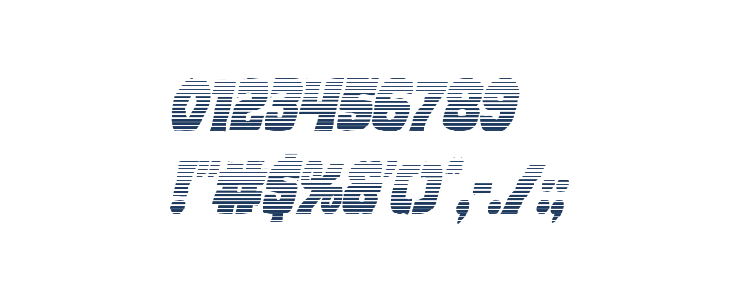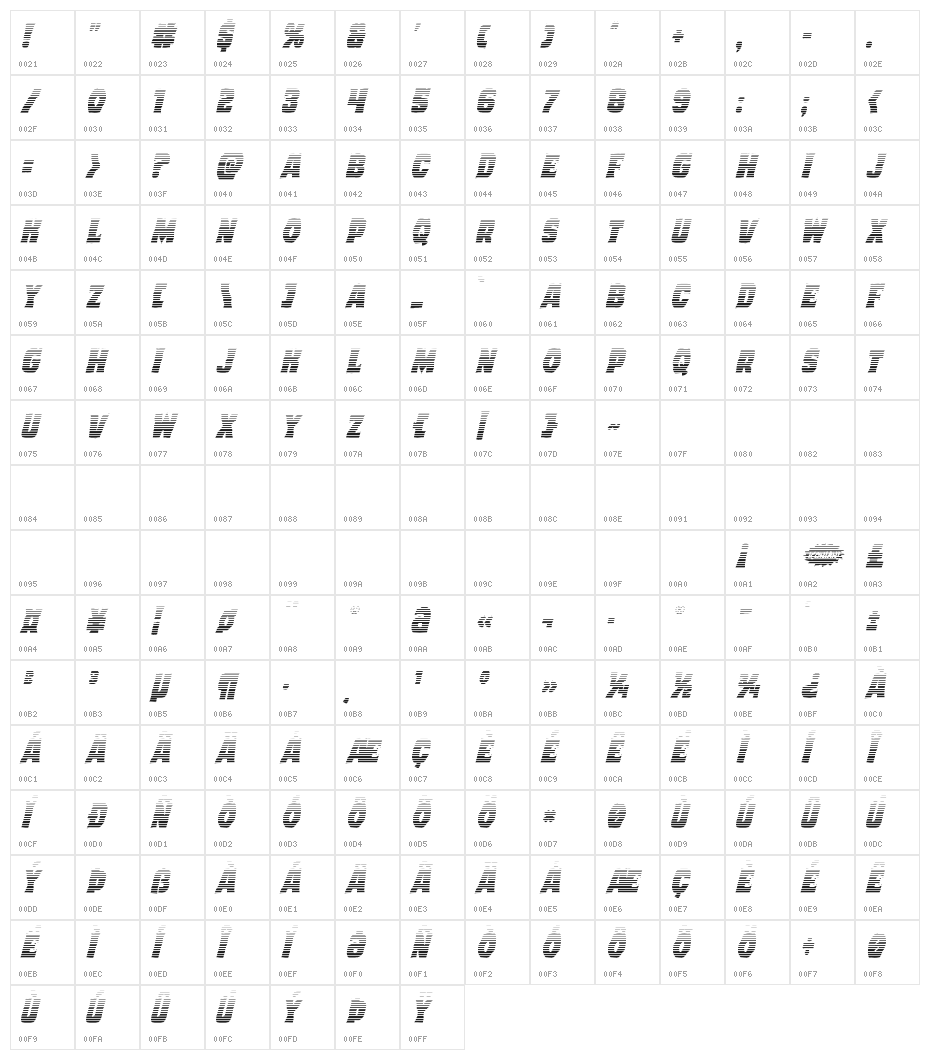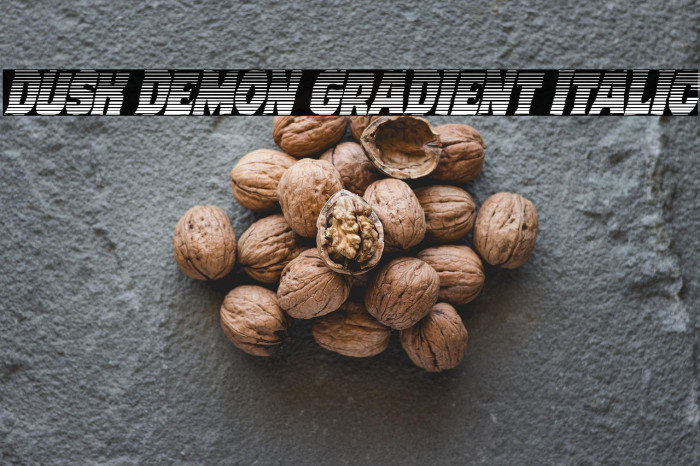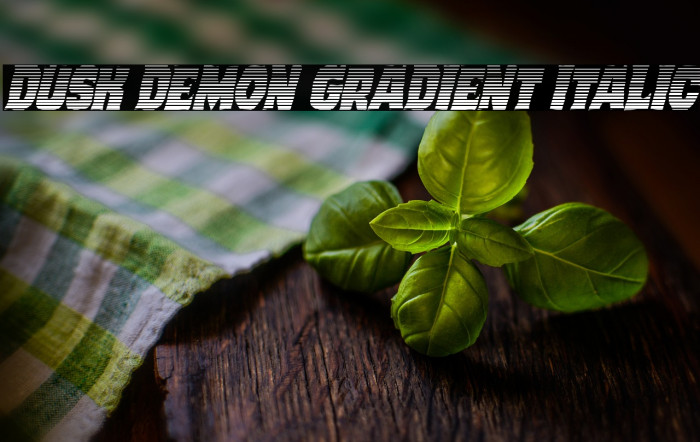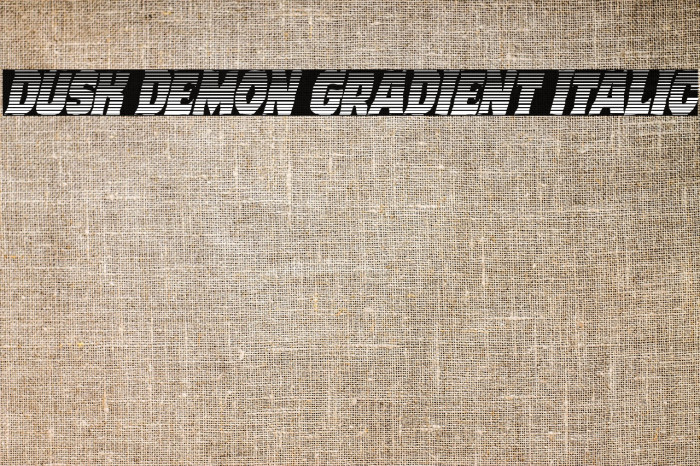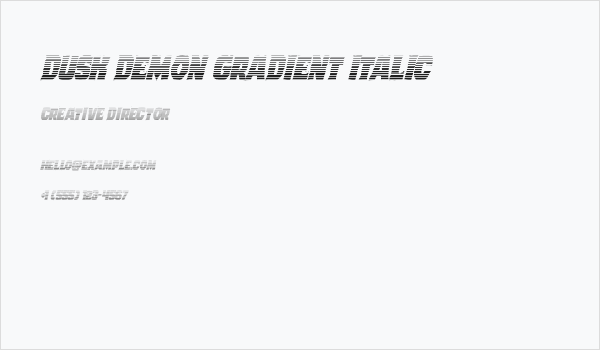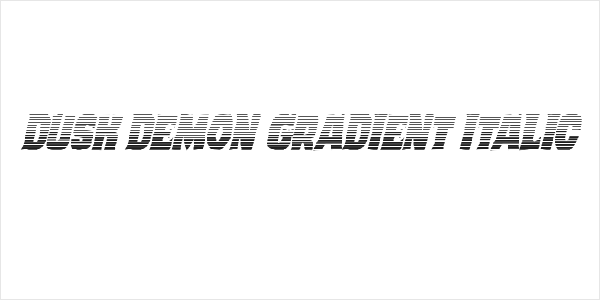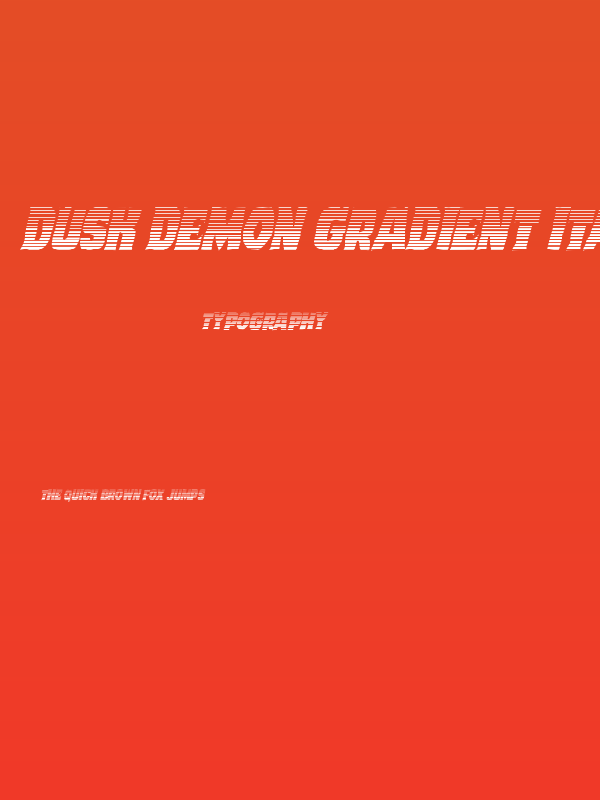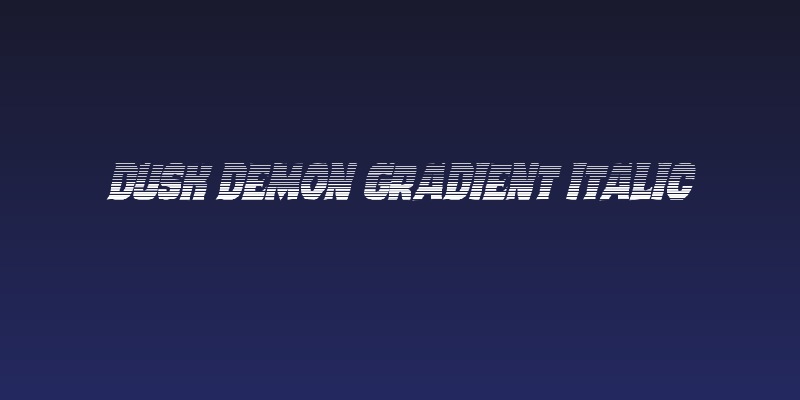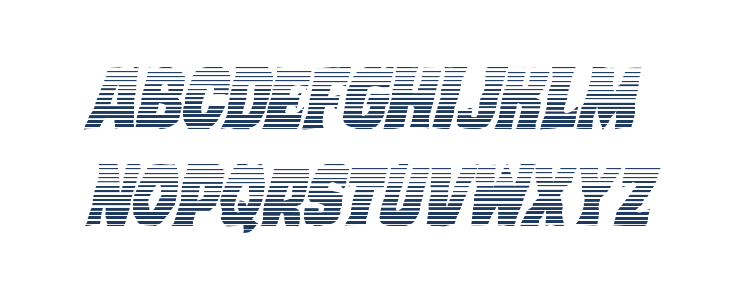
Dusk Demon Gradient Italic Font
Dusk Demon Gradient Italic Description
This font features a bold and dynamic design with a distinct gradient effect that gives it a sense of motion and energy. The italicized style adds a slanted, forward-leaning appearance, enhancing its modern and edgy look. The characters are wide and robust, with a unique striped pattern that creates a striking visual impact. This font is ideal for projects that require a strong, attention-grabbing typeface. The uppercase and lowercase letters, along with numbers and special characters, maintain a consistent style, ensuring versatility across various applications.
| Proposed Projects | Ideal for sports branding, dynamic posters, modern advertisements, and edgy graphic designs. |